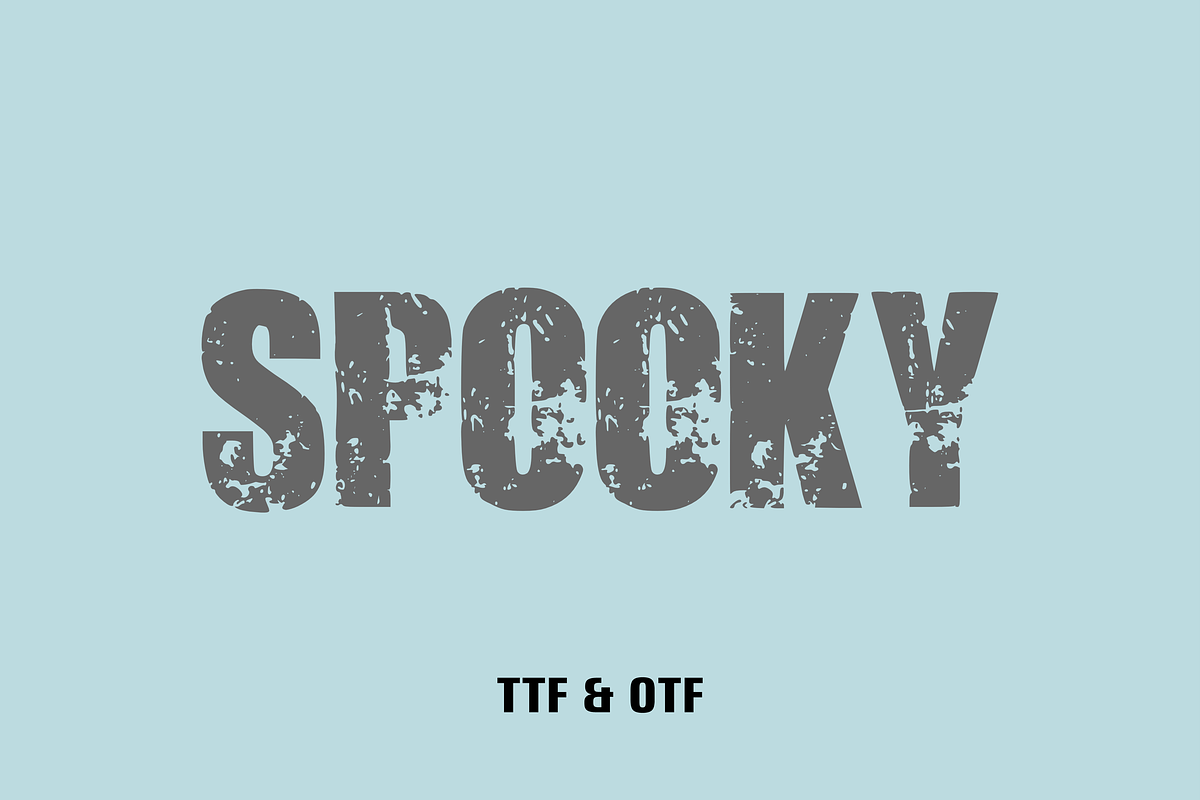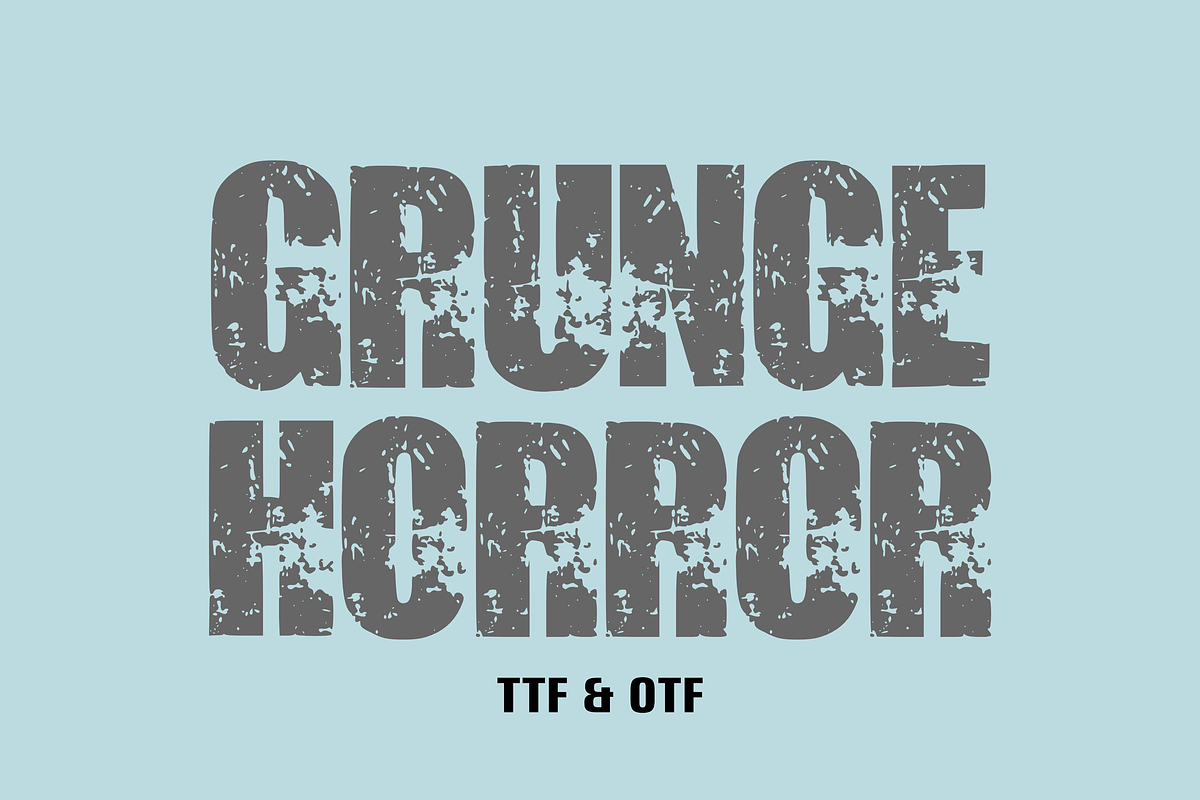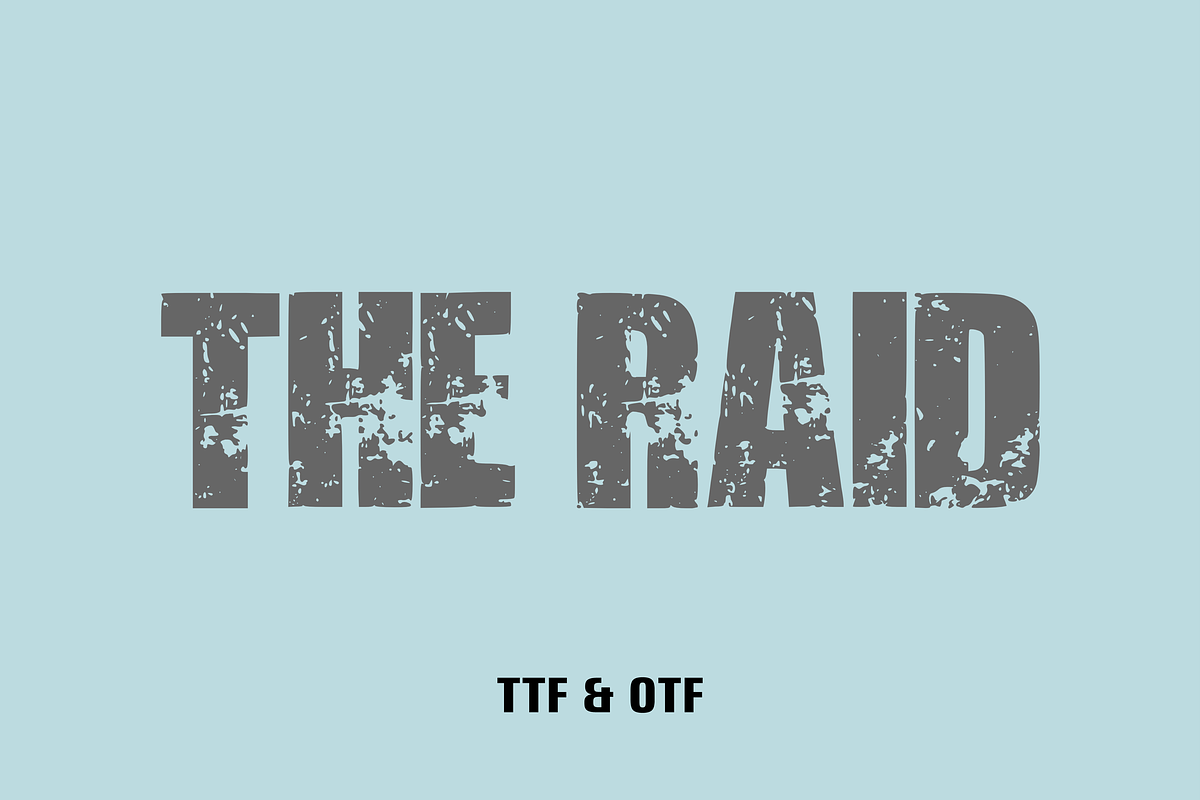
Grunge Horror - Grunge Font Types
Unleash the power of uniqueness with our sans-serif font “Grunge Horror.” Known for its bold yet unique design, Grunge Horror is more than just a typeface. Its every rough line is layered with a broken, sinister texture, exuding an aura of grit and creepiness. With its unforgiving boldness and individualistic spirit, Grunge Horror provides the perfect textural complement to projects that thrive on boldness. From disturbing poster graphics and bold album covers to distinctive streetwear branding, Grunge Horror is made to embody the essence of nonconformity. Let Grunge Horror elevate your design aesthetic and convey your message with profound impact.